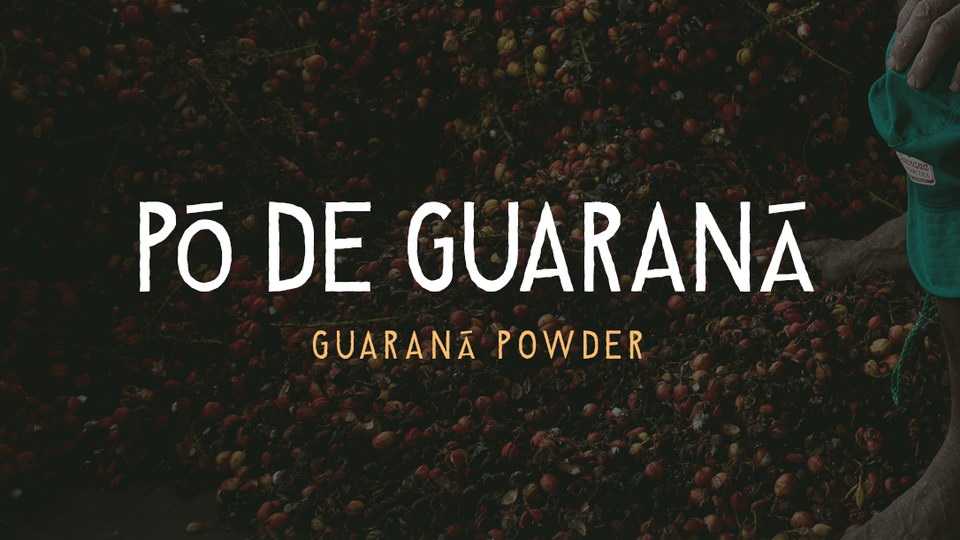
Download Pó de Guaraná font, a vernacular typeface inspired by hand-drawn letters painted on the facade of brazilian informal businesses. Pó de Guaraná font is perfect for crafts, healines, messages, banners, posters, book covers and more.
Designer: Bruno Andrade